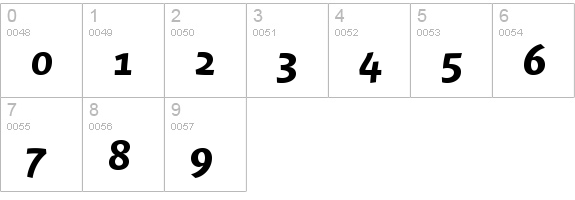
Jambono-Medium is a balanced, medium-weight variant in the Jambono typeface family \xE2\x80\x94 well suited to sub-headlines, navigation, and balanced editorial work.
Introducing Jambono-Medium, a truly remarkable font that effortlessly combines elegance with a touch of modernity. This font is the epitome of versatility, making it a perfect choice for a wide range of design projects. Jambono-Medium boasts clean and crisp lines, ensuring optimal legibility in both print and digital mediums. Its medium weight strikes a harmonious balance, making it suitable for various purposes, including headlines, body text, branding, and more. This font exudes a sense of sophistication and professionalism, making it a go-to choice for designers and creatives alike. Its timeless appeal brings a touch of class to any design, from sleek corporate presentations to stylish editorial layouts. But what truly sets Jambono-Medium apart is its availability. We are delighted to offer this font for free, as we believe that exceptional design resources should be accessible to all. You can easily download Jambono-Medium, without any strings attached, at FontsMarket.com. Don't miss out on this fantastic opportunity to enhance your design projects with Jambono-Medium. Immerse yourself in its elegant charm and explore the endless possibilities it provides. Whether you're a seasoned designer or just starting out, Jambono-Medium is sure to become your new favorite font.